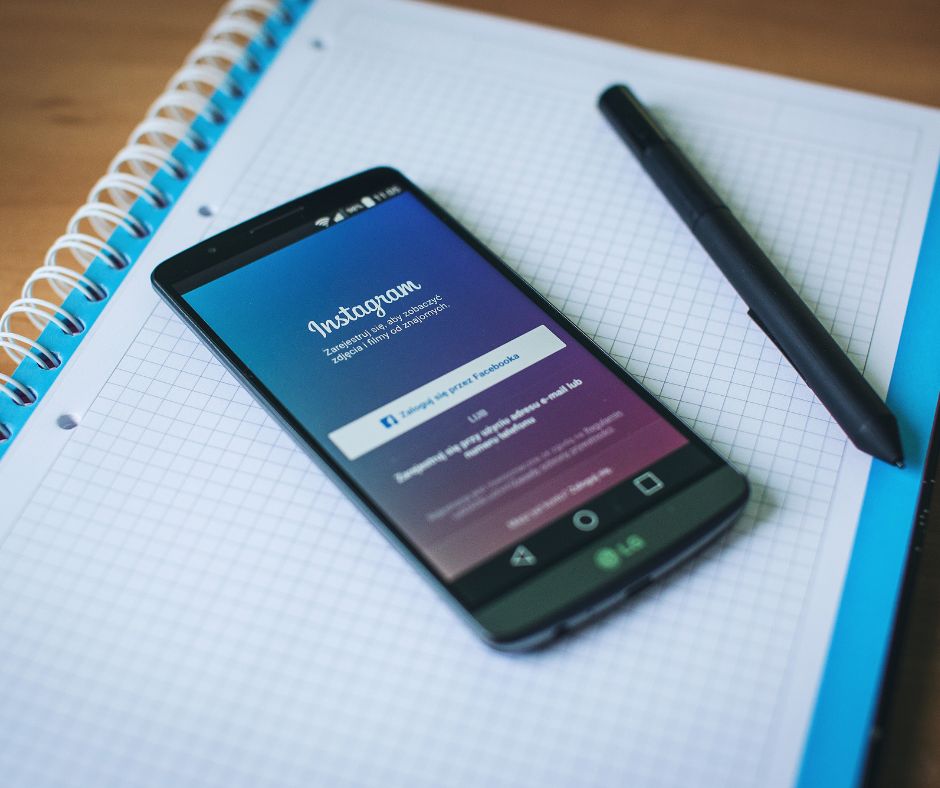
Get a sense of your new instagram font with a stay preview. The logo’s core design hasn’t.
Best New Fonts On Instagram Story 2022 Idea In 2022, Click where you’d like to add your text to the screen (remember, you can drag the text to move this later) your keyboard should now pop up. My gut tells me that they made an effort to create their own fonts?
New fonts on instagram story 2022 instagram is famous for a myriad of things. Click where you’d like to add your text to the screen (remember, you can drag the text to move this later) your keyboard should now pop up. People use this social media platform to post pictures, stories, videos, boomerangs, and whatnot. How to use the new instagram stories fonts.
Use any of the included ig fonts to create an ombre effect for your stories. For example purposes, we’ll use a scenario where you don’t want to post an image or video. Before, i would spend time writing out my text twice in different colors and then try to precisely layer them over one another. If you’ve created a new story, the color fills the whole screen, creating a layer over your photo.
People use this social media platform to post pictures, stories, videos, boomerangs, and whatnot. Mainly used for short text, this font is very geometric and consists mostly of curves and lines. Open up your instagram stories camera, and either select an image to use from your camera roll or take an image. Press down on a color option of your choice. How to Add Multiple Photos to an Instagram Story [3 Ways] Vishere.
Meta tags font generator is most fulfilling to the different instagram font mills in this submission because it approves you to preview what your new font will appear like on instagram with. It can be used for shipping labels, signs. But now, instagram took that editing trend and made it a feature within the app. New fonts on instagram story 2022 instagram is famous for a myriad of things. Free Download Brutalism Instagram Stories Full Version Freemium.
You'll then see the proprietary font in all its glory. Use any of the included ig fonts to create an ombre effect for your stories. New fonts on instagram story 2022 instagram is famous for a myriad of things. How to change font on instagram stories 2022 powered by: 8 Aesthetic fonts ideas in 2022 aesthetic fonts, instagram ideas post.
The logo’s core design hasn’t. So, let us tell you the right way to change fonts on instagram stories. Follow the below steps to learn how. But now, instagram took that editing trend and made it a feature within the app. Get To Know Me Instagram story template, Get to know me, Instagram.
Use any of the included ig fonts to create an ombre effect for your stories. Before, i would spend time writing out my text twice in different colors and then try to precisely layer them over one another. Open the app, swipe over to your instagram story, and click on “create” at the bottom of. So, let us tell you the right way to change fonts on instagram stories. Instagram now automatically translate text in Stories All you need to.
Go ahead and input the caption you desire to have in that story. Open instagram > create new story. The new font types give you a wide array of choice and you will surely be able to amp the look and feel your stories up with them. 300 instagram captions for when you don't know what to write Fresh 2022 IG Story Templates Oh Snap Boutique.
So finally instagram has added few different fonts to instgram stories, in this video i will show you how get and use them.#instagramstoriesfont #newfonts Make sure your instagram app has the latest update. Use your other hand to press on the text cursor. Instagram still has not revealed the names of each of the fonts. Kako lahko uredim svoj Instagram Story After Posting? ZERU.
Tap on the a++ icon at the top of the screen to choose the various highlight options. The first major change is that you can now see data from up to 90 days instead of 30 or 60. People use this social media platform to post pictures, stories, videos, boomerangs, and whatnot. Making stories much more engaging, right from the app. Videohive Travel Instagram Story 38900016 Free Download GoDownloads.
The new font types give you a wide array of choice and you will surely be able to amp the look and feel your stories up with them. Collection of fonts for 2022 fonts. Font generator ( ͡° ͜ʖ ͡°) designers; Mainly used for short text, this font is very geometric and consists mostly of curves and lines. Comment afficher l'ancien Instagram Stories ZERU.
New fonts on instagram story 2022 instagram is famous for a myriad of things. Collection of fonts for 2022 fonts. Follow the below steps to learn how. New fonts on instagram story 2022 instagram is famous for a myriad of things.
Open Instagram > Create New Story.
It is also possible to measure your live video performance. Get a sense of your new instagram font with a stay preview. Instagram still has not revealed the names of each of the fonts. Next, you can choose from your gallery or capture a video/image.